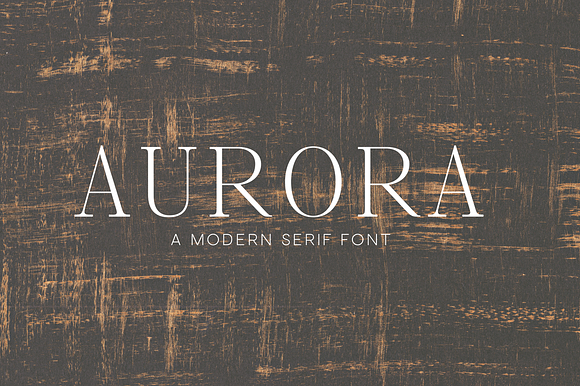
Aurora - Serif Font for Designers
Introducing Aurora - Serif Font for designers
Why Aurora - Serif Font for Designers is worth a look
Aurora - Serif Font for Designers by themelissabee fits naturally into Branding, posters, packaging, typography.